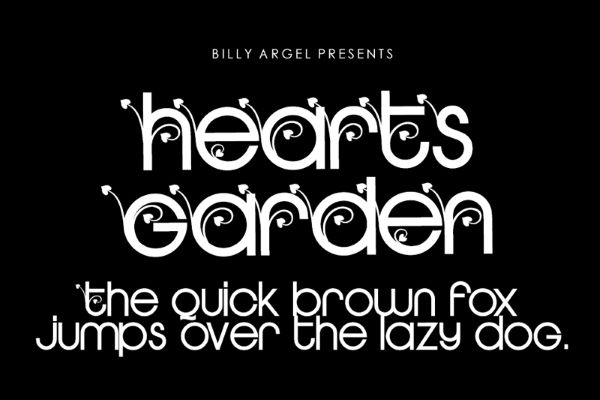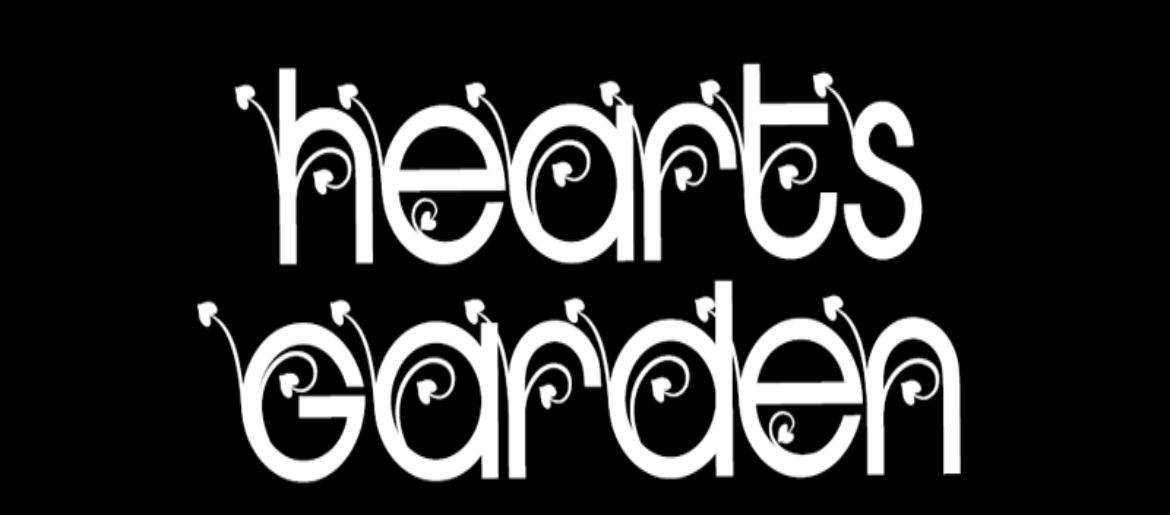
Hearts Garden Font
Hearts Garden by Billy Argel Fonts is a delicate ornate display typeface where romantic flourishes and decorative heart motifs are woven directly into the letterforms. Its lowercase-only characters carry a gentle, vintage charm that feels equally at home on book covers, floral shop signage, wedding stationery, gift packaging, and any context where beauty and sentiment need to be expressed through typography. A typeface that holds its tenderness lightly but wears it openly. Free for personal use.